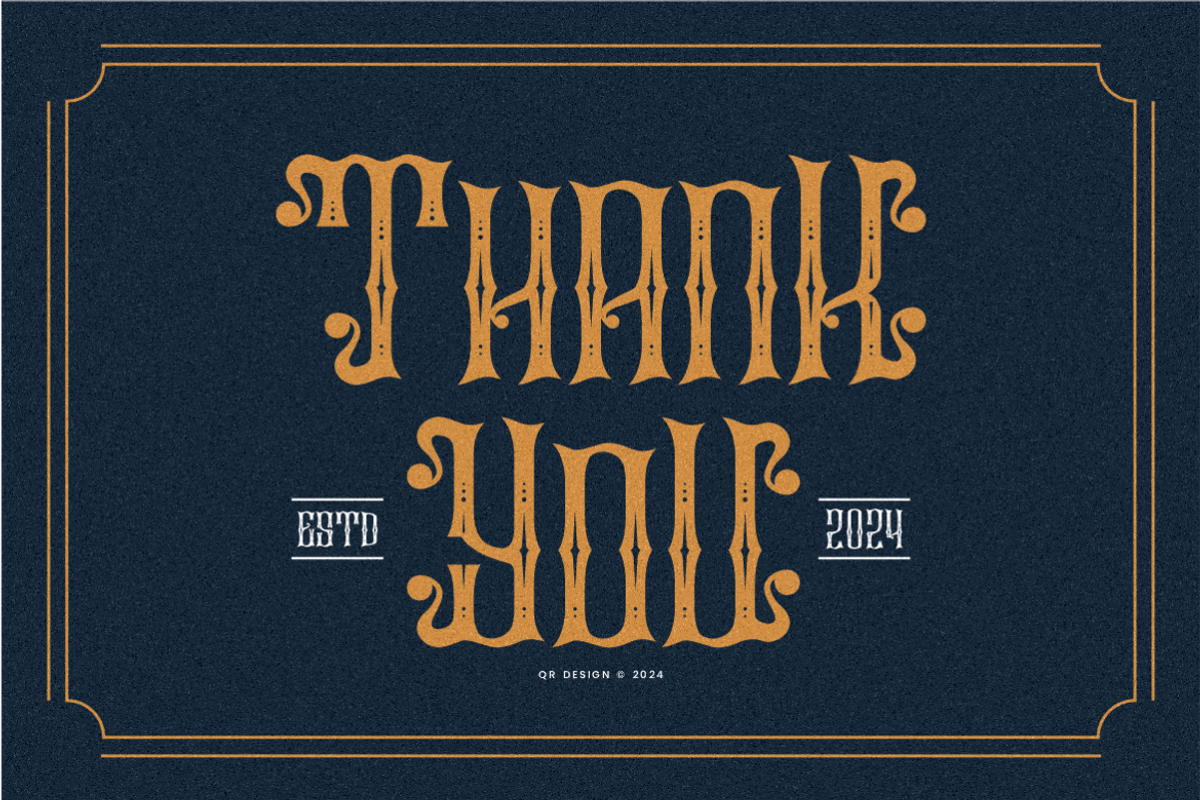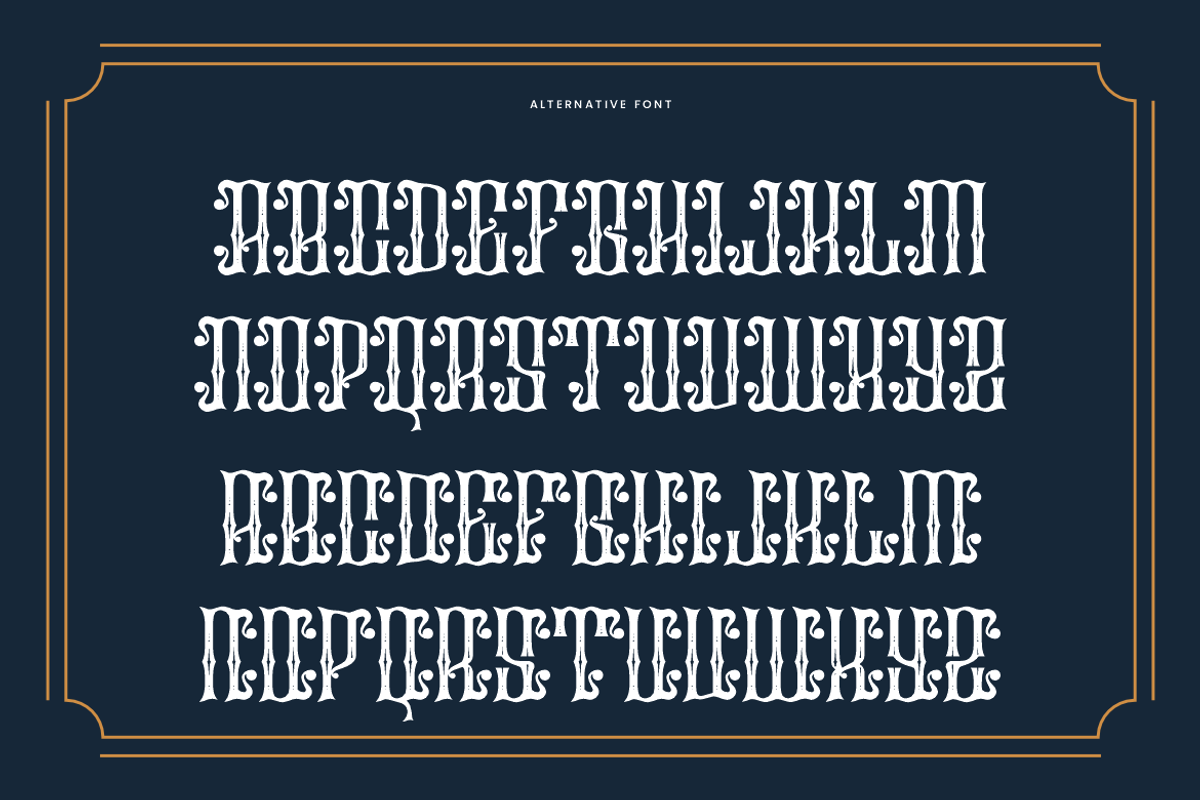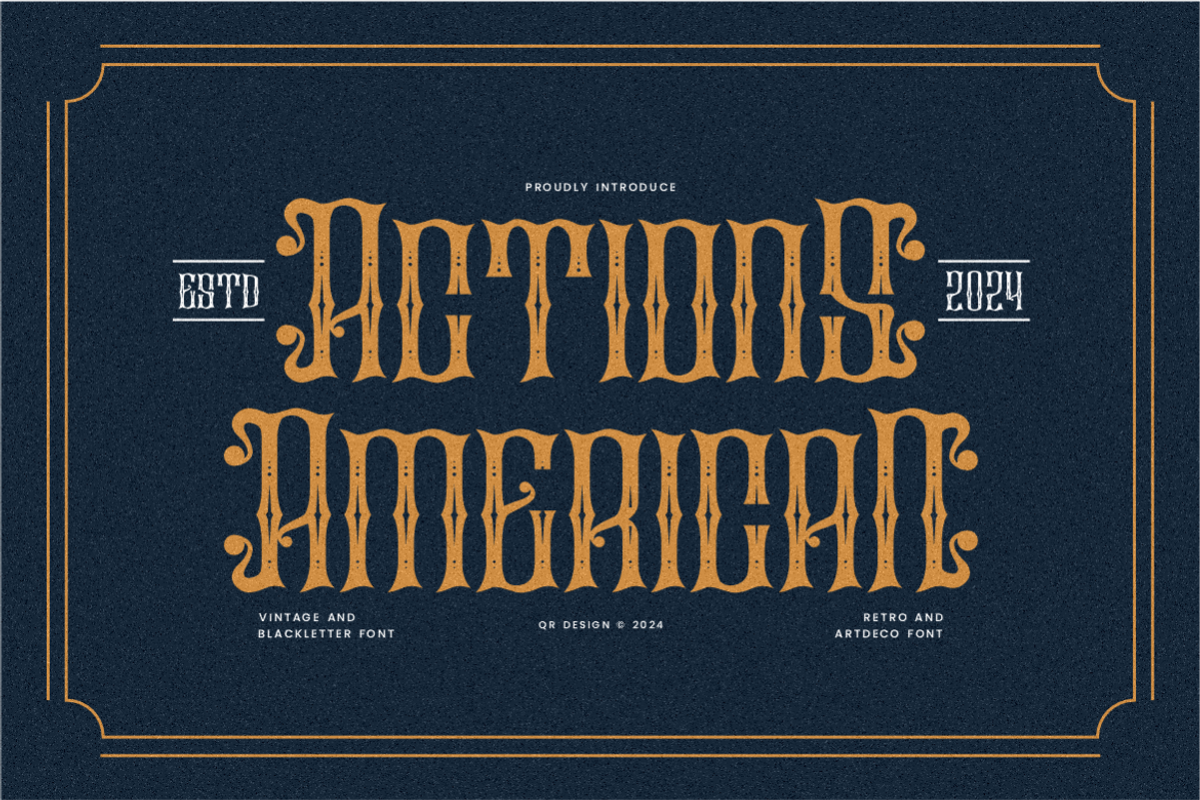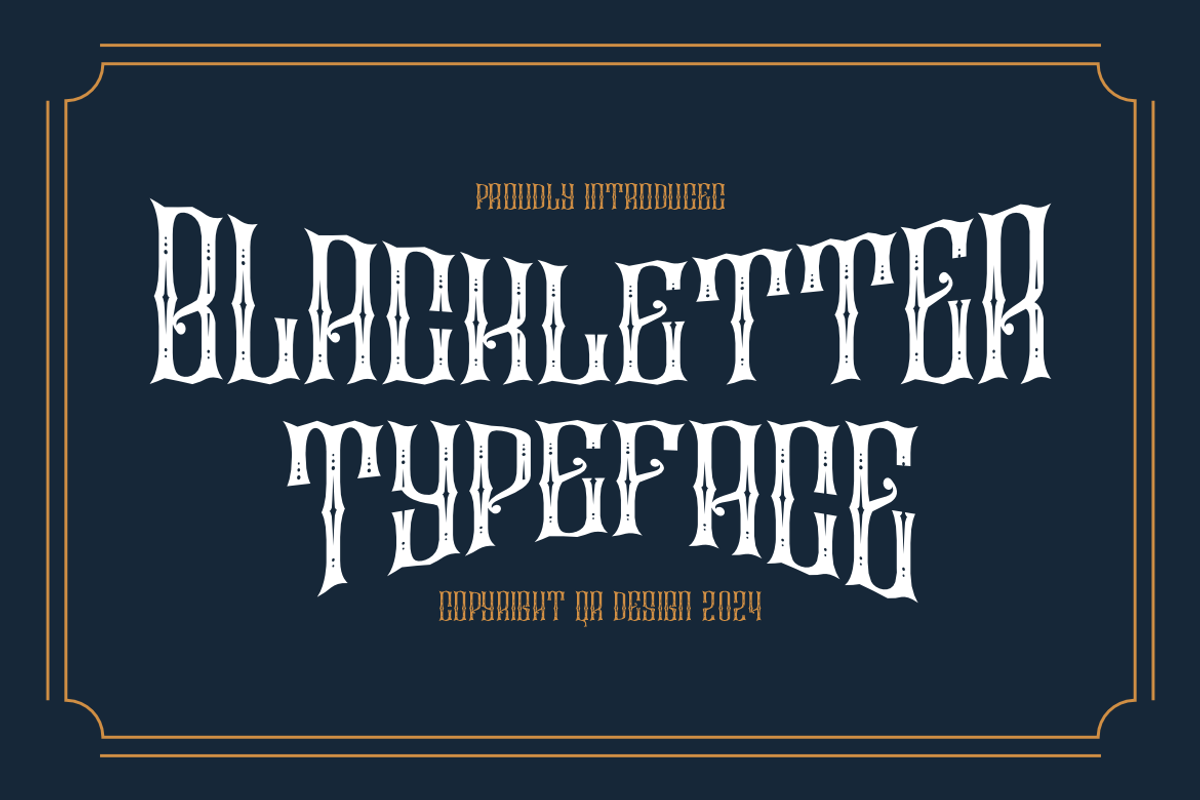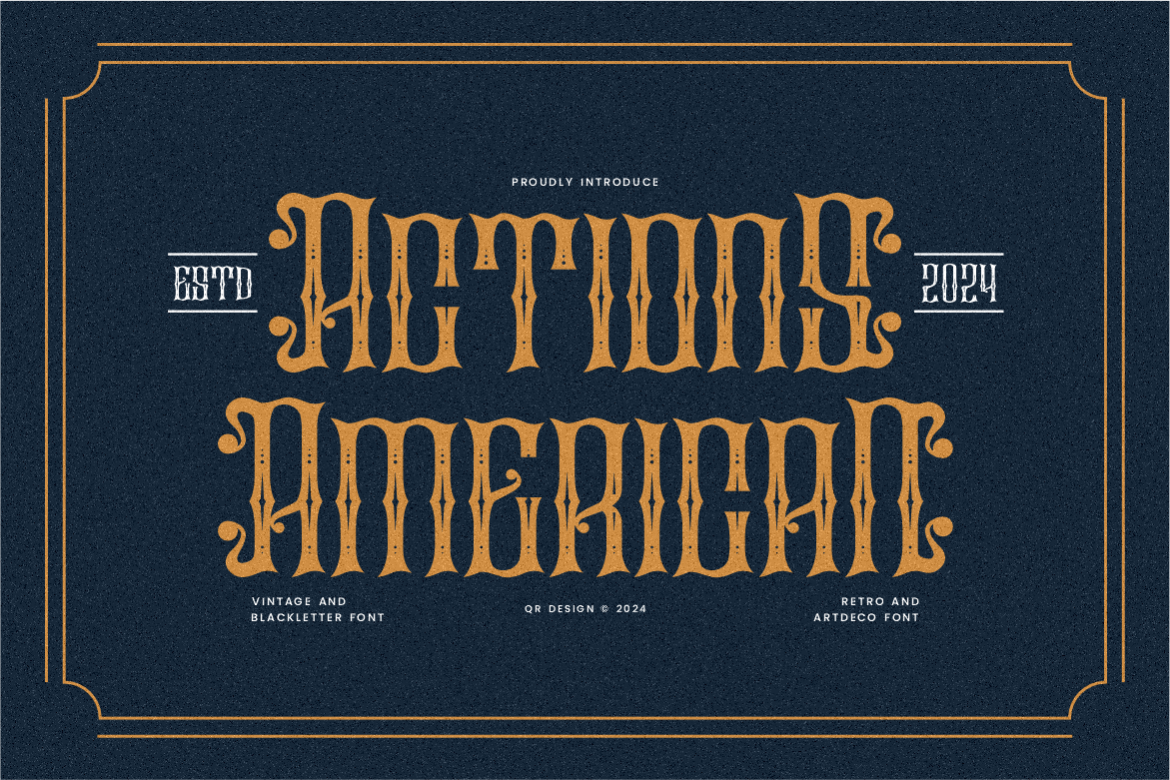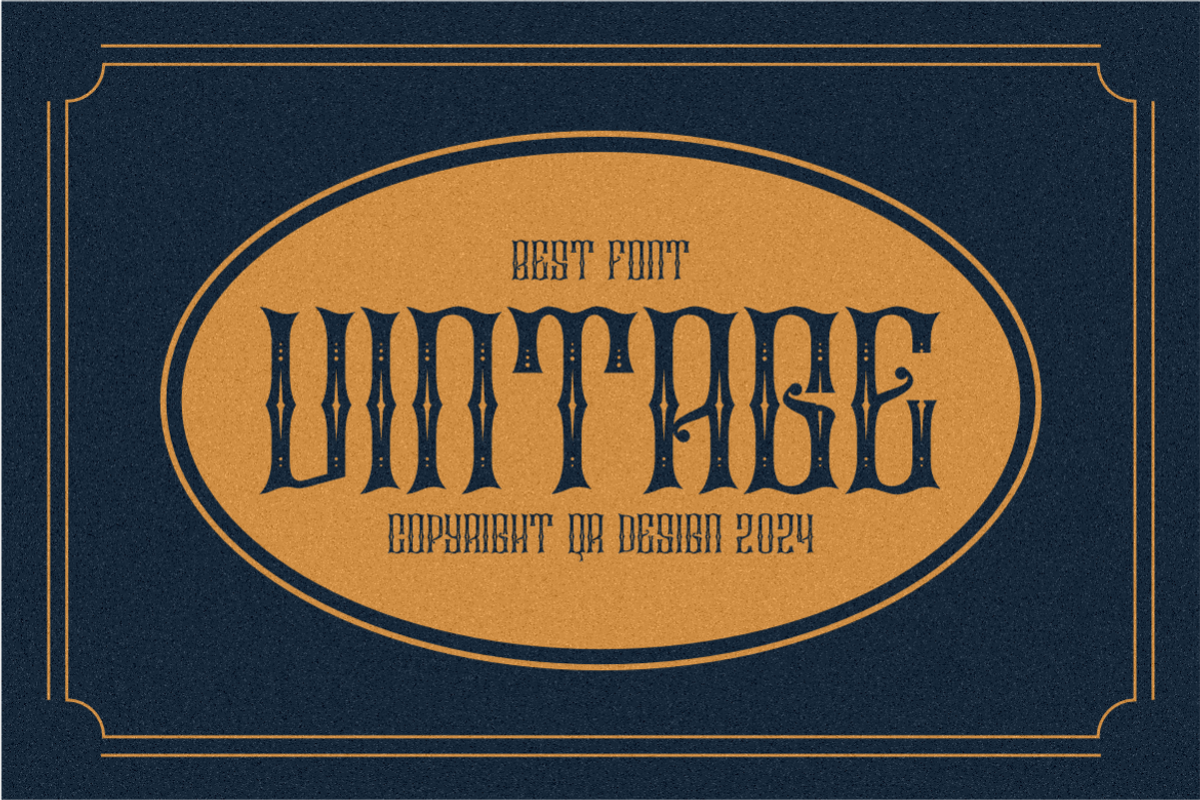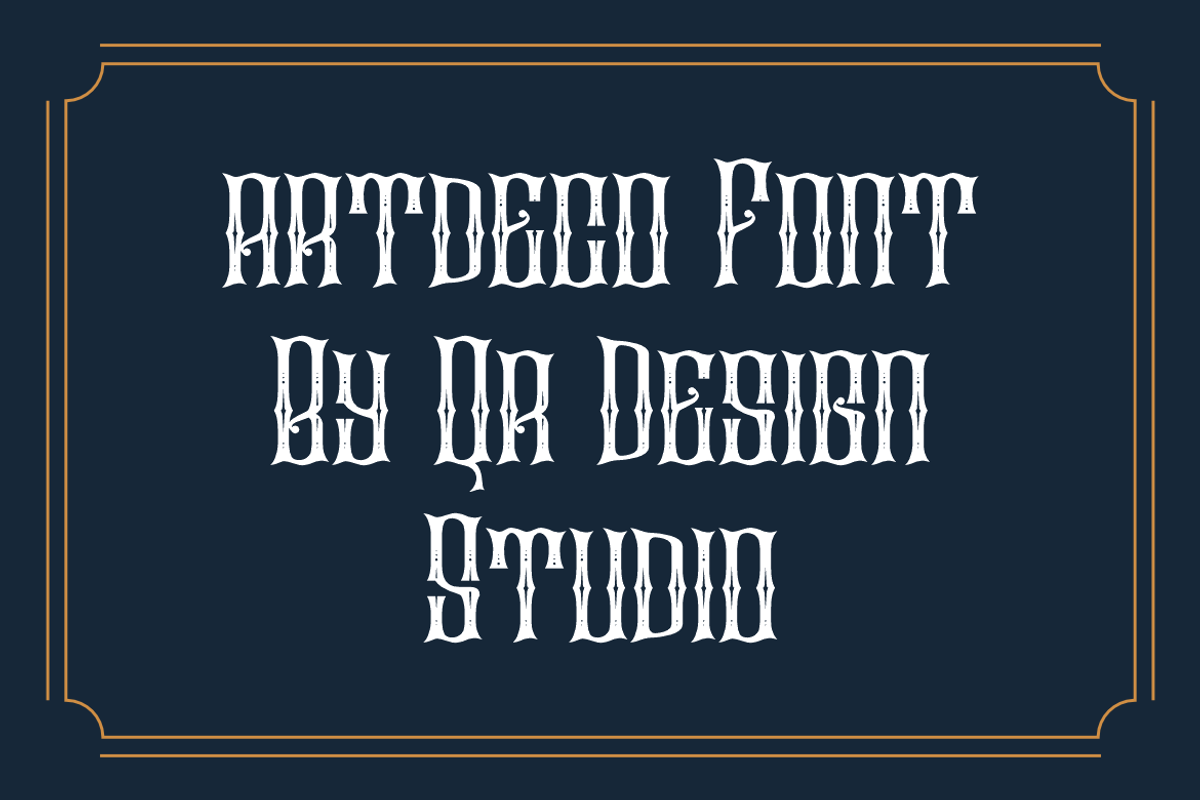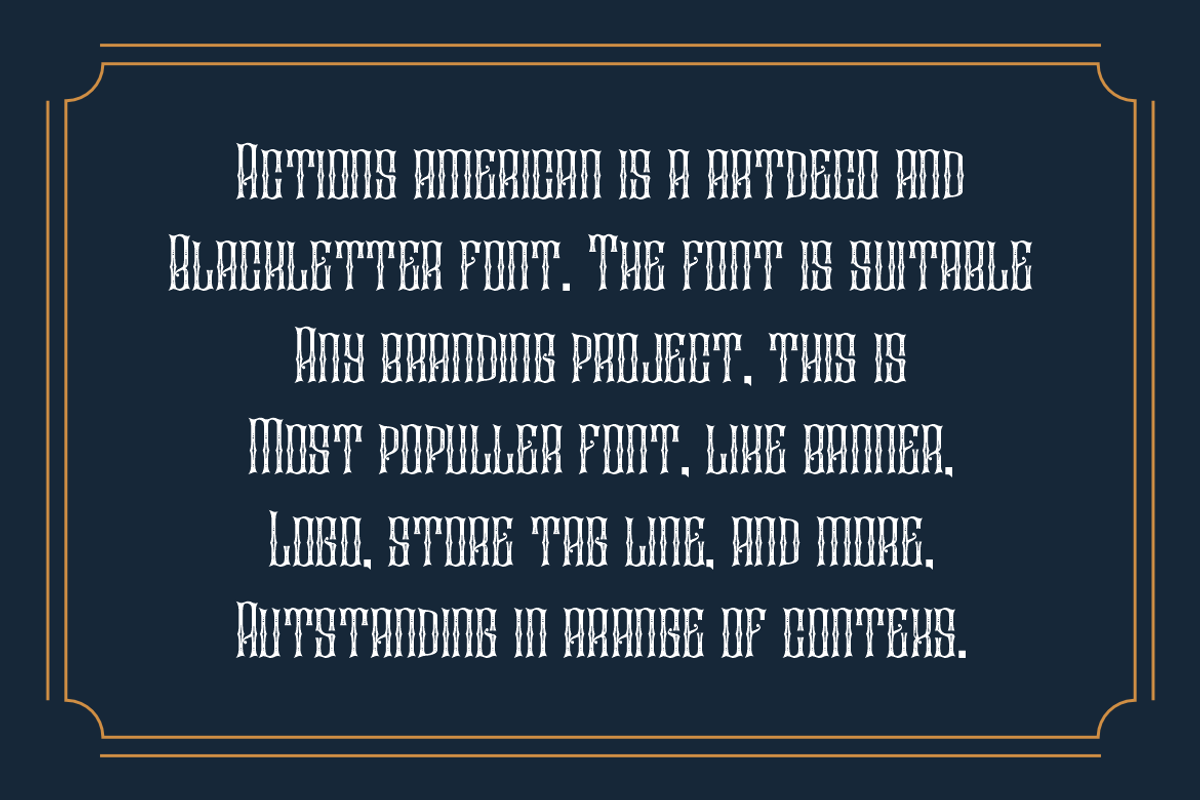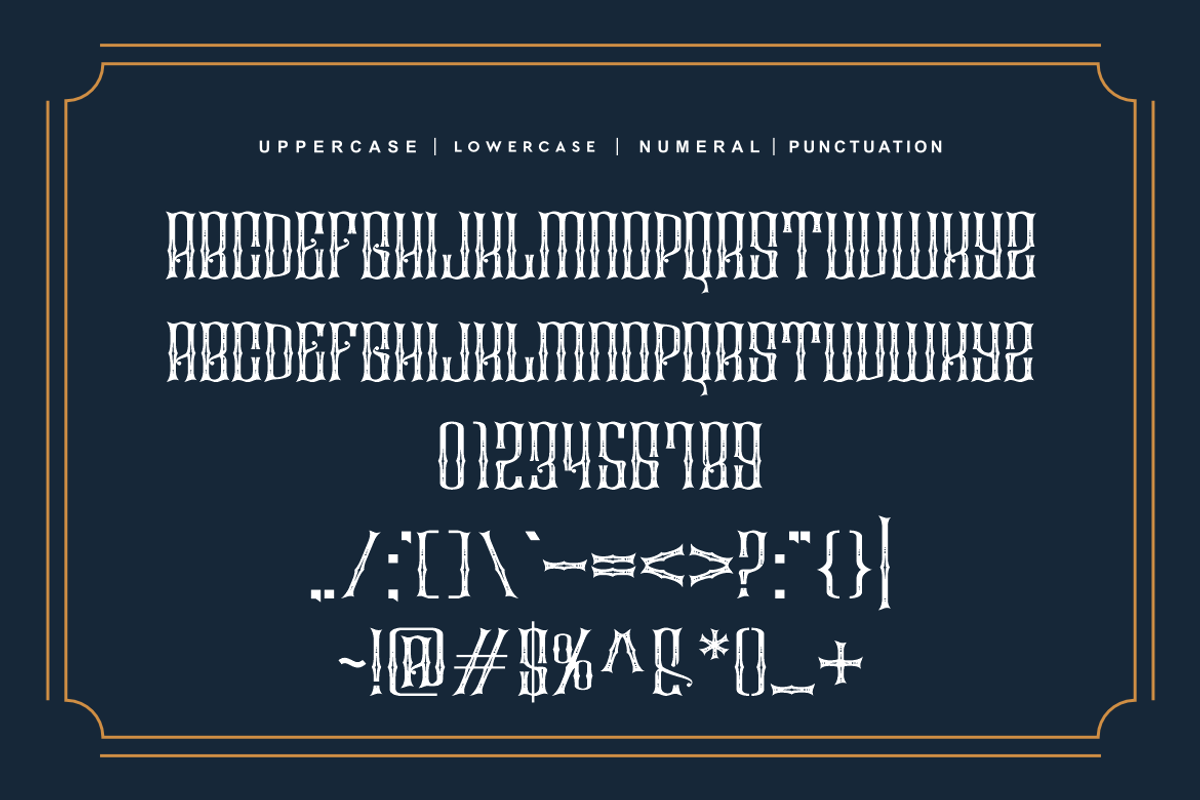
Actions American - Vintage Font
Actions American Font is a artdeco and authentic display font. The font is suitable for any branding project like poster, logo, sport, and many more. Outstanding in a wide range of contexts.